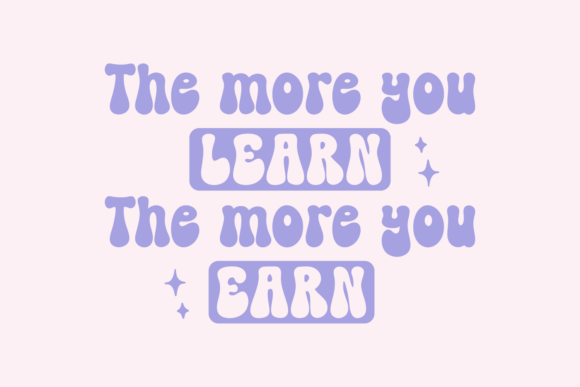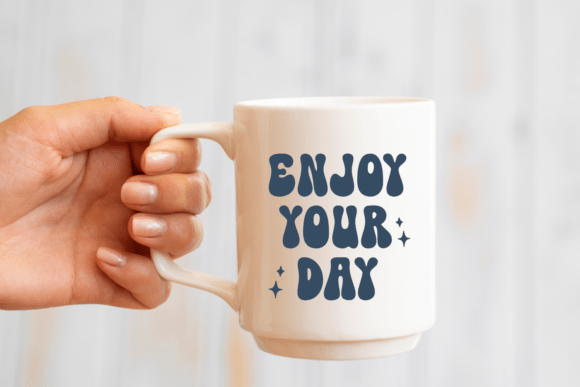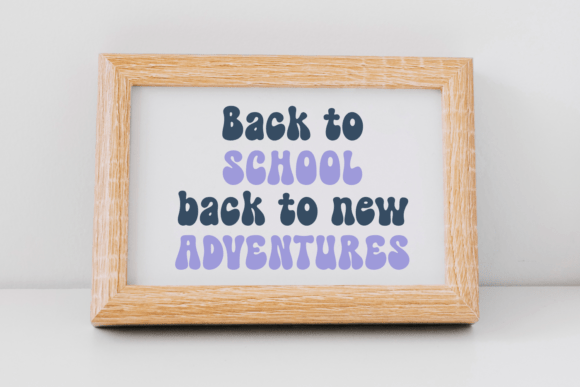
Introduction to Paper Groovy Font
Steeped in the charming allure of the past, Paper Groovy presents a vintage yet delightful display font.
It’s a perfect tribute to the nostalgic back-to-school era, seamlessly bonding yesterday’s aesthetics with today’s design needs Paper Groovy is a masterpiece, providing smooth and effortless access to all glyphs and alternatives.